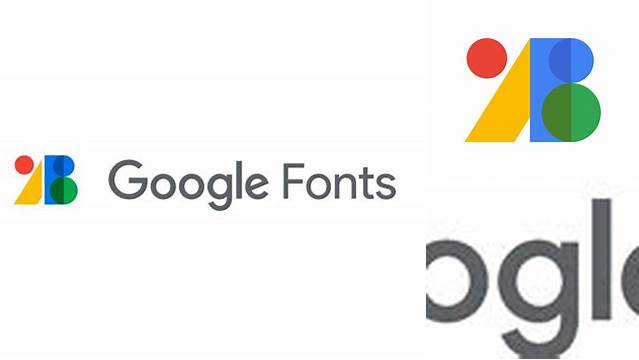
Google Fonts Logo Vector: Find & Use It Right
What is Google Fonts?
Google Fonts is a library of over a thousand free and open-source font families, a real treasure trove for anyone involved in web design, graphic design, or content creation. Launched in 2010, it aimed to make high-quality typography accessible to everyone, regardless of their budget or technical expertise. Before Google Fonts, web designers were often limited to a small set of system fonts, which could make websites look generic and uninspired. With Google Fonts, suddenly, the possibilities were endless. You can easily embed these fonts into your website by linking to the Google Fonts CDN (Content Delivery Network) or downloading the font files and hosting them yourself. This flexibility allows you to create unique and visually appealing designs that stand out from the crowd. The impact of Google Fonts on the web is undeniable. It has democratized typography, empowering designers and content creators to express their creativity and enhance the user experience. Whether you're building a simple blog or a complex e-commerce platform, Google Fonts provides the tools you need to make your content look its best. So, the next time you see a beautiful website with stunning typography, remember to thank Google Fonts for making it all possible. It's more than just a font library, it's a revolution in the world of design. Also, Google Fonts plays a crucial role in branding consistency. Imagine a scenario where a company uses a specific font in its logo and marketing materials. Maintaining that consistency across all platforms, both online and offline, is vital for brand recognition. Google Fonts makes this easy by providing a reliable and accessible source for these fonts. Whether it's on the company's website, social media graphics, or printed brochures, the same font can be used seamlessly, reinforcing the brand's identity. Furthermore, Google Fonts integrates well with various design tools and platforms. Most website builders, such as WordPress, Wix, and Squarespace, have built-in support for Google Fonts, allowing users to easily select and apply fonts to their websites without any coding. Similarly, graphic design software like Adobe Photoshop and Illustrator also allows users to import and use Google Fonts, ensuring consistency across all design projects. This seamless integration streamlines the design process and eliminates the need for designers to search for and download fonts from multiple sources. With Google Fonts, everything is conveniently located in one place, making it easier than ever to create beautiful and consistent designs.
Why You Might Need the Google Fonts Logo Vector
Alright, so why would you even need the Google Fonts logo vector? Well, there are several scenarios where having a high-quality vector version of the logo comes in handy. If you're writing a blog post (like this one!) about Google Fonts, you'll want to include the logo to make your content more visually appealing and informative. Perhaps you're creating a presentation about web design and want to showcase the tools and resources available. Or maybe you're designing a website or app that integrates with Google Fonts and need to display the logo to indicate compatibility. In all these cases, using a vector version of the logo ensures that it looks crisp and clean, no matter the size or resolution. Vector graphics are based on mathematical equations rather than pixels, which means they can be scaled infinitely without losing quality. This is crucial for ensuring that the logo looks great on everything from small mobile screens to large posters. Imagine using a low-resolution raster image of the Google Fonts logo on a large banner. It would look pixelated and unprofessional, detracting from your overall design. With a vector logo, you can avoid this problem and ensure that your visuals always look their best. Another important reason to use the Google Fonts logo vector is to maintain brand consistency. The Google Fonts logo is a recognizable symbol, and it's important to use it correctly to avoid confusing or misleading your audience. Using an official vector version ensures that you're using the correct colors, shapes, and proportions, helping to reinforce the Google Fonts brand identity. This is particularly important if you're working on a project that's associated with Google or promoting Google Fonts in any way. Furthermore, having the logo in vector format allows you to easily customize it for different applications. You can change the colors, add effects, or incorporate it into larger designs without compromising the quality of the image. This flexibility is invaluable for designers who need to adapt the logo to fit different contexts and styles. For example, you might want to create a black-and-white version of the logo for a print project or add a drop shadow to make it stand out on a website. With a vector logo, these modifications are easy to make and won't result in any loss of quality. So, whether you're a blogger, designer, marketer, or developer, having the Google Fonts logo vector in your toolkit is essential for creating professional and visually appealing content. It ensures that the logo looks its best in any context, maintains brand consistency, and gives you the flexibility to customize it for different applications. Don't settle for low-resolution raster images when you can have a high-quality vector logo that will make your work shine.
Where to Find the Official Google Fonts Logo Vector
How to Use the Google Fonts Logo Correctly
Okay, so you've got your hands on the Google Fonts logo vector. Awesome! But before you go slapping it on everything, let's talk about how to use it correctly. Brand consistency is key, guys! Google has specific guidelines for how its logos should be used, and it's important to follow them to maintain a consistent brand image. First off, pay attention to the logo's colors. The Google Fonts logo typically uses the Google brand colors: blue, red, yellow, and green. Make sure you're using the correct color codes to ensure that the logo looks consistent across all your materials. Avoid changing the colors or using gradients unless you have explicit permission from Google. Next, consider the logo's size and placement. The logo should be large enough to be easily recognizable, but not so large that it overwhelms your design. Leave enough clear space around the logo to prevent it from feeling cramped or cluttered. Avoid placing the logo too close to other elements, such as text or images. Also, be mindful of the logo's orientation. The Google Fonts logo is typically displayed horizontally, but there may be cases where you need to use a vertical version. If you're unsure, check the Google Brand Guidelines for specific instructions. Another important consideration is the logo's context. Use the logo in a way that's relevant and appropriate for your audience. For example, if you're writing a blog post about Google Fonts, it makes sense to include the logo to identify the topic. However, if you're using Google Fonts on your website, you don't necessarily need to display the logo unless you're specifically promoting your use of Google Fonts. Avoid using the logo in a way that's misleading or deceptive. Don't imply that your product or service is endorsed by Google if it's not. Be transparent about your relationship with Google and only use the logo in a way that accurately reflects that relationship. Finally, always respect Google's intellectual property rights. The Google Fonts logo is a trademark of Google, and you're not allowed to use it in a way that infringes on their rights. Don't use the logo to create derivative works or to promote products or services that compete with Google. By following these guidelines, you can ensure that you're using the Google Fonts logo vector correctly and maintaining brand consistency. This will help you build trust with your audience and avoid any potential legal issues. So, take the time to understand the Google Brand Guidelines and use the logo responsibly.
Common Mistakes to Avoid When Using the Logo
Using the Google Fonts logo vector might seem straightforward, but there are some common pitfalls you should definitely avoid. Seriously, guys, these mistakes can make your work look unprofessional and even land you in hot water with Google. One of the biggest mistakes is using an outdated or low-resolution version of the logo. As we've already discussed, using a vector logo is crucial for ensuring that it looks crisp and clean, no matter the size or resolution. Using a pixelated or blurry logo can make your design look amateurish and detract from your overall message. Another common mistake is distorting or altering the logo in any way. Don't stretch it, skew it, or change its proportions. The logo should always be displayed in its original form to maintain brand consistency. Similarly, avoid changing the colors of the logo unless you have explicit permission from Google. The Google brand colors are carefully chosen to represent the company's identity, and changing them can dilute the brand's impact. Another mistake is placing the logo in a way that's confusing or misleading. Don't use the logo to imply that your product or service is endorsed by Google if it's not. Be transparent about your relationship with Google and only use the logo in a way that accurately reflects that relationship. Also, avoid using the logo in a way that's offensive or inappropriate. Don't use it to promote hate speech, violence, or any other type of harmful content. Google has a strong commitment to ethical behavior, and using their logo in a way that violates those values could result in legal action. Another mistake is failing to provide proper attribution. If you're using the Google Fonts logo in a way that requires attribution, be sure to give credit where credit is due. This typically involves including a statement like "Google Fonts is a trademark of Google LLC." Finally, don't forget to review the Google Brand Guidelines before using the logo. These guidelines outline the proper usage of the logo, including the correct colors, sizes, and spacing. Following these guidelines will help you avoid any potential mistakes and ensure that you're using the logo correctly. In summary, using the Google Fonts logo vector correctly requires attention to detail and a respect for Google's brand identity. By avoiding these common mistakes, you can ensure that your visuals look professional, maintain brand consistency, and avoid any potential legal issues. So, take the time to understand the Google Brand Guidelines and use the logo responsibly.